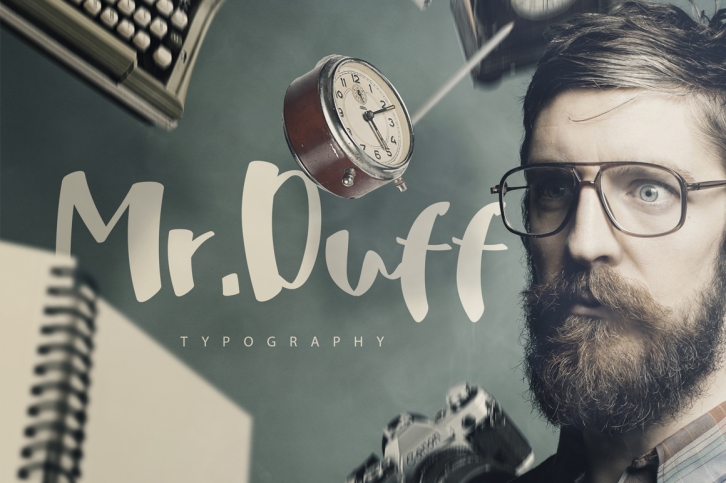
Mr. Duff Typeface is a gorgeous font that was realeased on June 9, 2016. The font can be used in many style contexts and design environments. Perfect for invitations, magazines, websites, logos, and more! It was designed by SmartDesigns and the file size is 2.93 MB. Thanks for checking out this font!